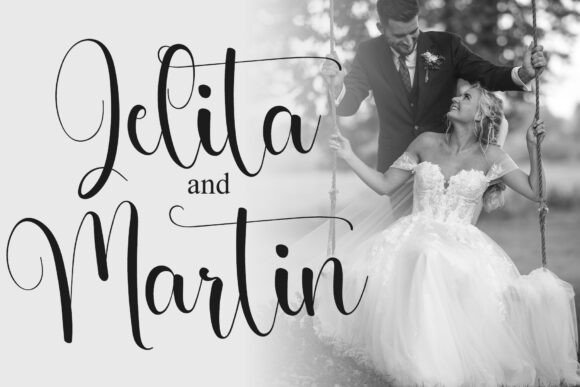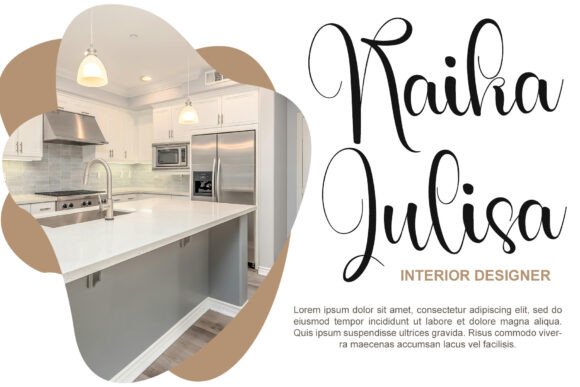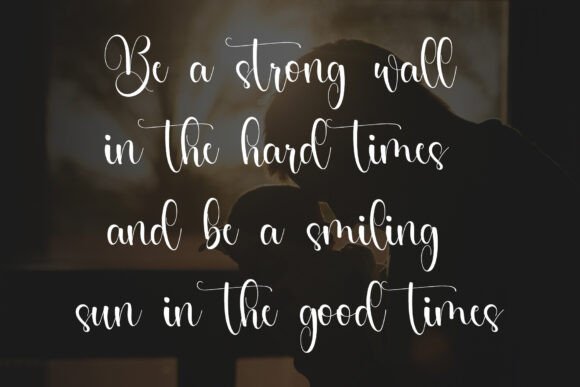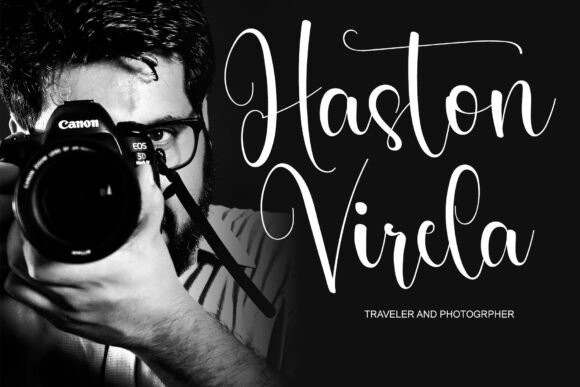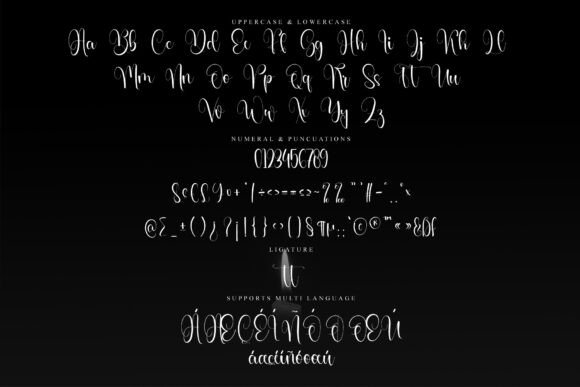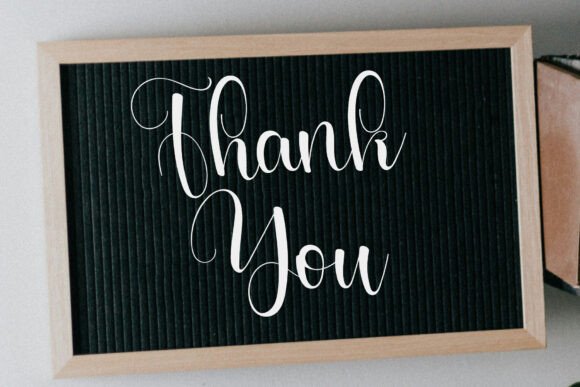
The Perfect Script: Bright Elegant Font for Designers
There’s nothing quite like the rush of creating something new and beautiful. Whether it’s a logo, a branding project, or a special event invitation, the process of bringing an idea to life is a thrilling experience. For designers, it’s all about capturing the essence of a concept and conveying it in a way that resonates with the audience. And that’s where the Bright Elegant Font comes in – a stylish and dainty script font that adds a touch of elegance to any project.
Bright Elegant Font is a versatile tool for designers, perfect for a range of applications from logos and branding projects to labels, photography, and watermarks. With its PUA encoded design, accessing all the glyphs and swashes is a breeze, making it a valuable addition to any design toolkit.
Bright Elegant Font Key Features
- Font Family: Bright Elegant Font offers a range of elegant font styles, including script and serif options.
- Unique Characteristics: The font features a unique blend of elegance and sophistication, with subtle flourishes and ornate details that set it apart from other font styles.
- Language Support: Bright Elegant Font supports a wide range of languages, including Latin, Cyrillic, and Greek alphabets, making it a great choice for international applications.
Bright Elegant Font Review
I recently had the chance to work with the Bright Elegant Font, and I must say it’s a unique find. Here’s my honest review:
First off, the font’s elegant touch is exactly what it promises. The elegant script style adds a touch of sophistication to any design project. I also appreciate how versatile it is – I was able to use it for a range of applications, from headings to body text, without losing its charm.
While the font is elegant, it’s not the most readable at smaller font sizes. I found myself having to bump up the size to ensure the text was legible, which can be a bit limiting in certain design scenarios. Additionally, I wish there were more font weights and styles available to provide more design flexibility.
Overall, I’m impressed with the Bright Elegant Font’s unique style and versatility. While it may have some limitations, it’s a great choice for designs that require a touch of elegance. Just be mindful of its readability at smaller sizes, and you’ll be golden.
- Unique elegant script style
- Versatile and suitable for various design applications
- Readability may be an issue at smaller font sizes
- Limited font weights and styles available
Tips for Getting the Most Out of Bright Elegant Font
Use Bright Elegant Font to create visually appealing headings and titles.
Pair it with a clean and minimalist design to make your text stand out.
Experiment with different font sizes and colors to add depth and emphasis to your text.
Use Bright Elegant Font for:
Business cards and resumes
Marketing materials and brochures
Web design and landing pages
Presentations and reports